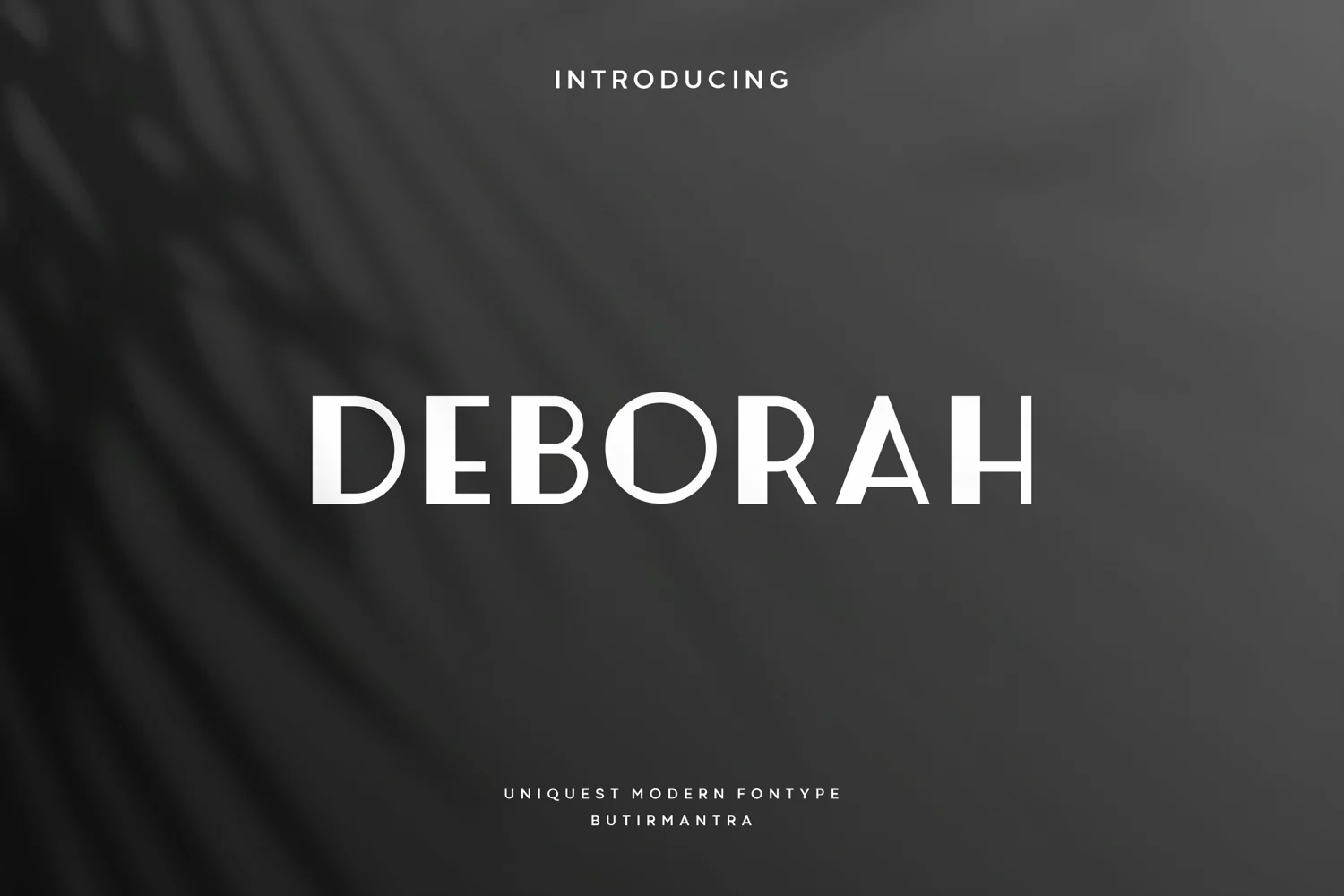
Deborah
Deborah font is display font with a unique style with little improvisation on uppercase mode, although these fonts are all uppercase fonts. This font is perfect for something related to food, illustrations, book titles, website title, writing on video, or anything you can try to gain experience in graphic design needs.